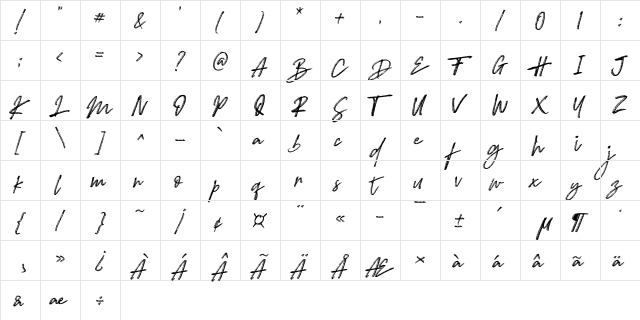
Sandblast Regular
| Designer | Sarwo Edhi Prayitno |
Design Context for Sandblast Typeface
Sandblast is a composed and adaptable typeface that performs quietly and consistently across a wide range of design contexts.